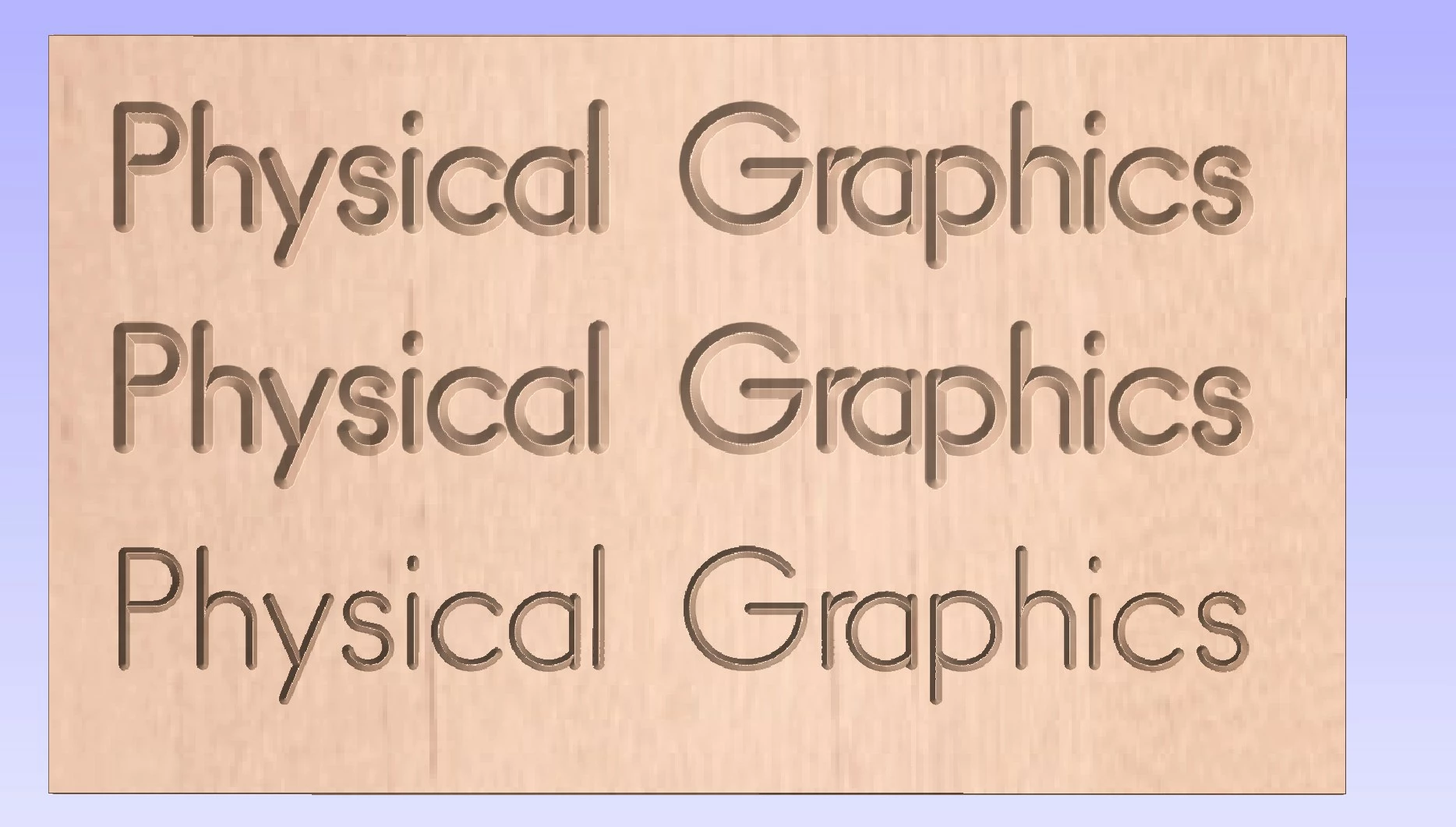
Make a Font 3d
I am trying to recreate a effect in illustrator so a font looks like wood that was carved with a router.  the demo cnc app i used was able to do a rendering but i cant seem to find a way to recreate it without hand drawing each letter
Photoshop or Illustrator can do these sorts of effects. Do a search on "engraved type effect" or "engraved text effect"....